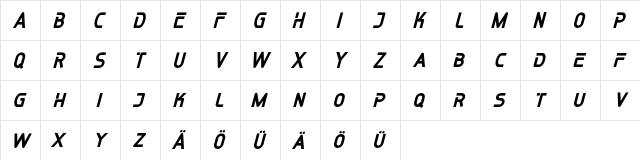
SPEEDTRAP FREE Regular
Regular · Inspiratype Inspiratype ·
DesignerInspiratype
Design Context for SPEEDTRAP FREE Typeface
SPEEDTRAP FREE takes a measured approach to typography — its balanced proportions and neutral character make it a reliable workhorse for both digital and print work.